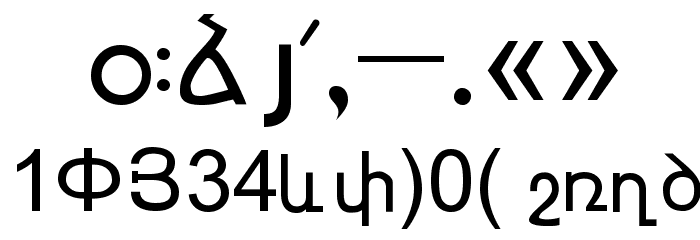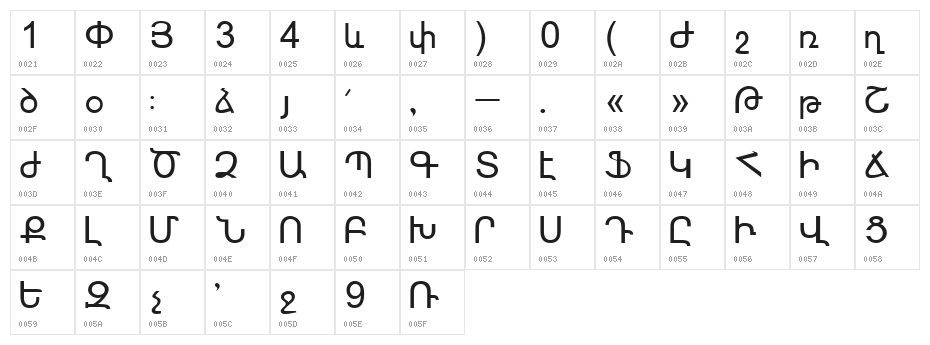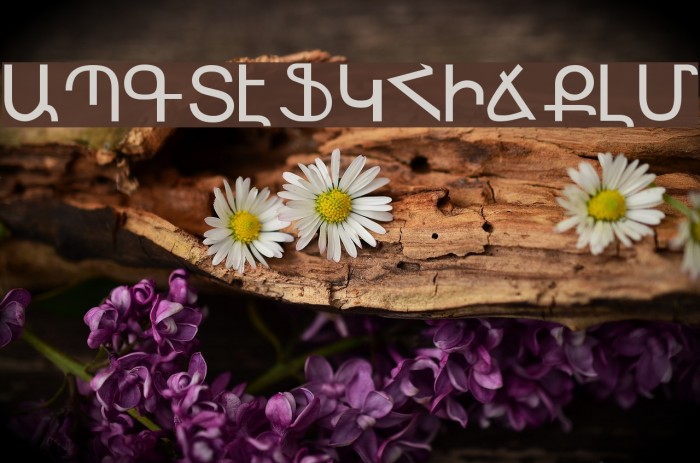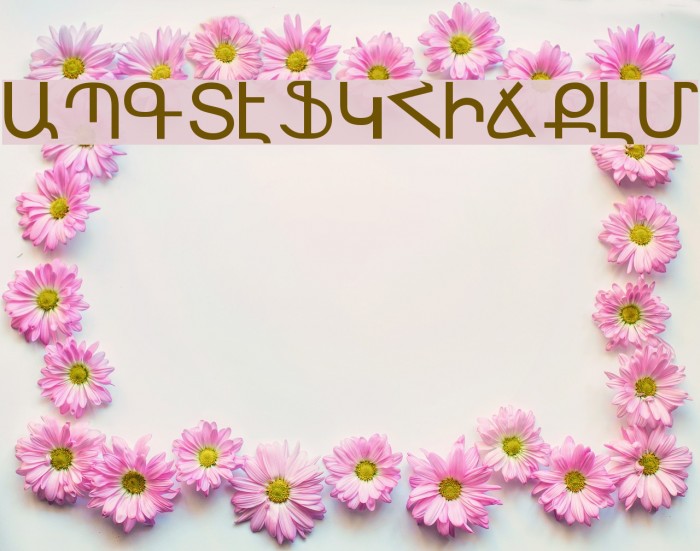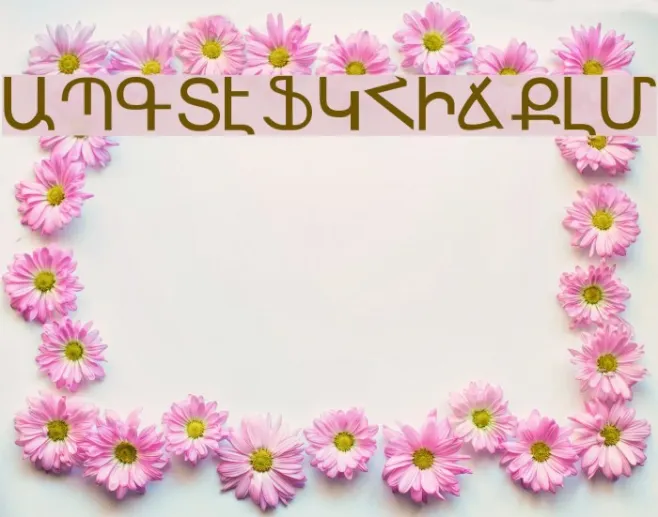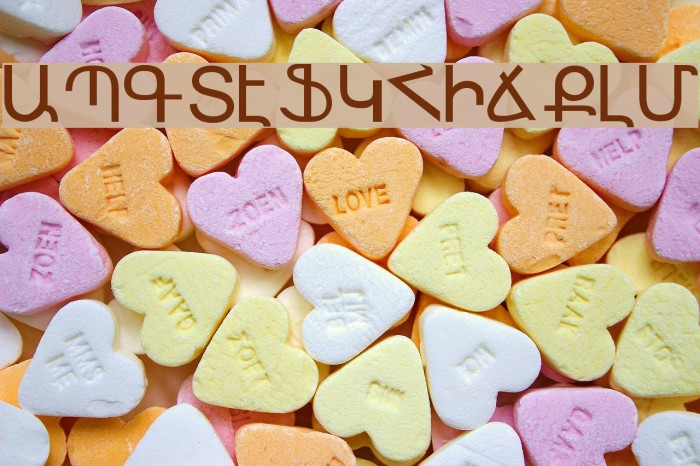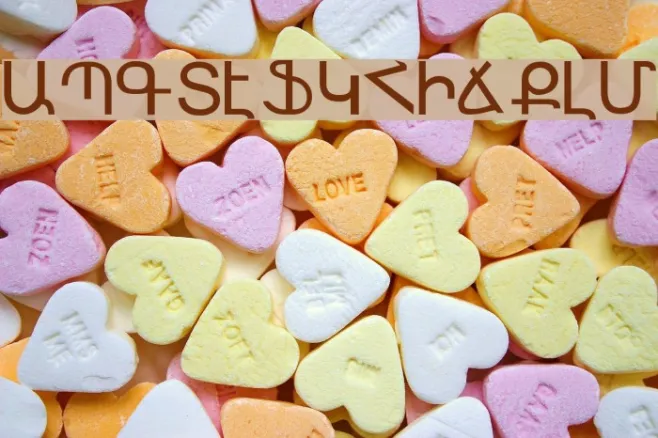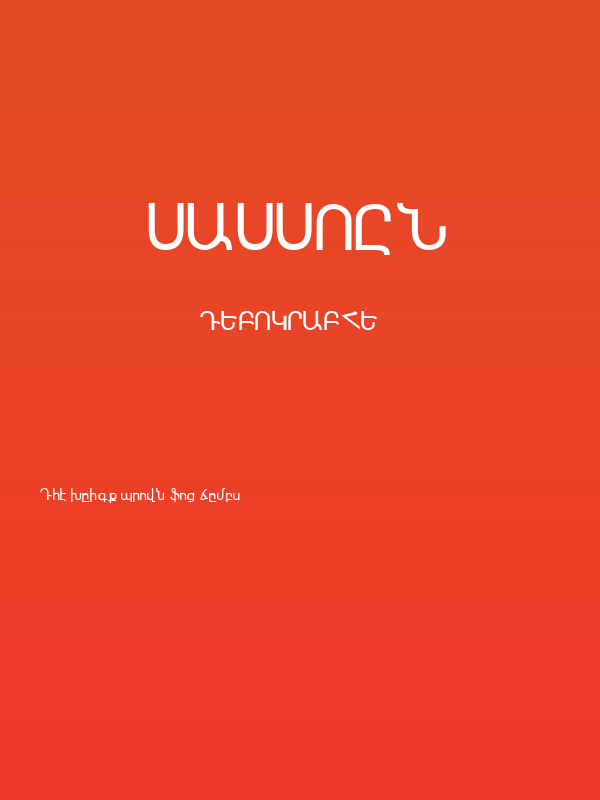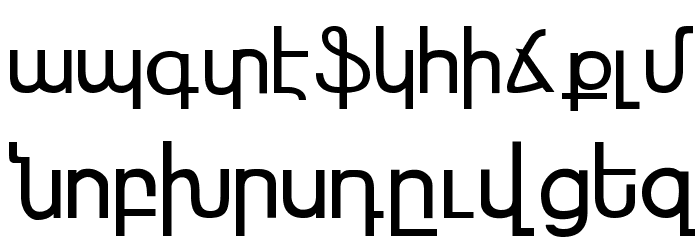
Sassoun Font
Sassoun Description
This font features a unique and modern design with a blend of geometric and organic shapes. The characters are crafted with smooth curves and sharp angles, creating a dynamic and visually appealing appearance. The font maintains a consistent stroke width, providing a clean and uniform look across all characters. Its distinct style is suitable for various design projects that require a contemporary and artistic touch. The font includes a full set of uppercase and lowercase letters, numbers, and a selection of special characters, making it versatile for different uses.